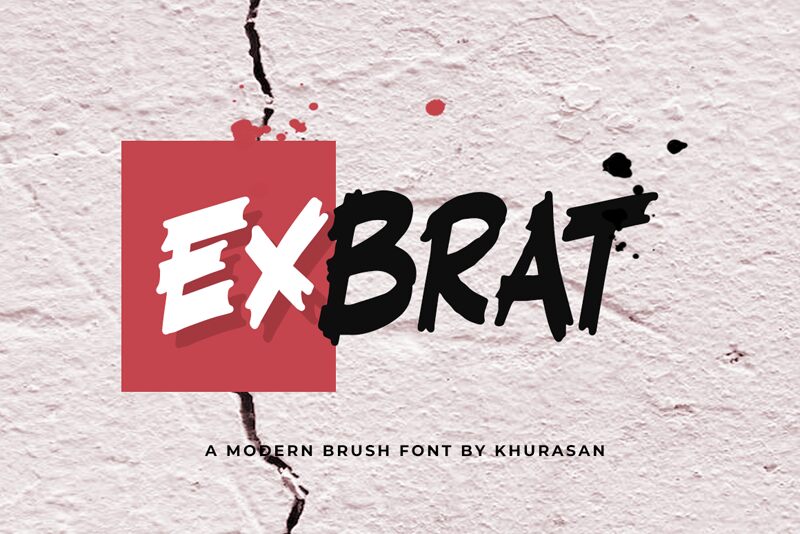
Exbrat
Introducing Exbrat, a modern brush font designed by Khurasan. With bold lettering and a unique style, this font is perfect for posters, logos and packaging designs that demand an attention-grabbing aesthetic.